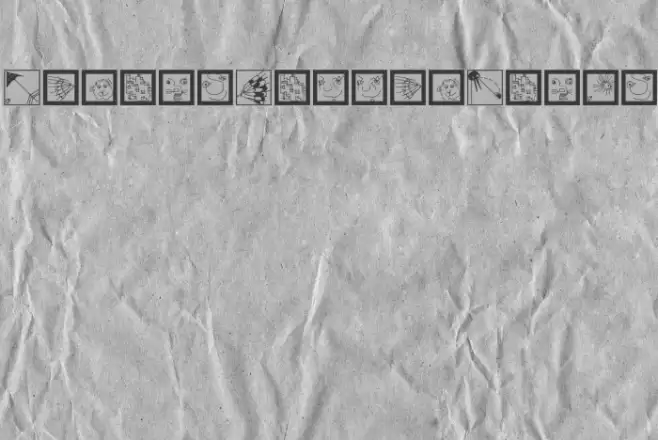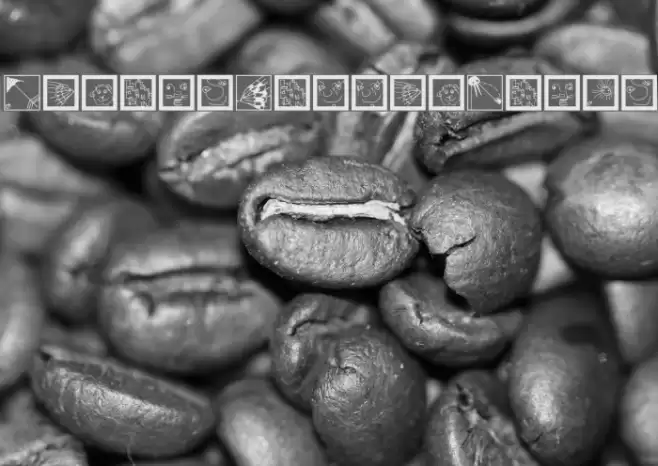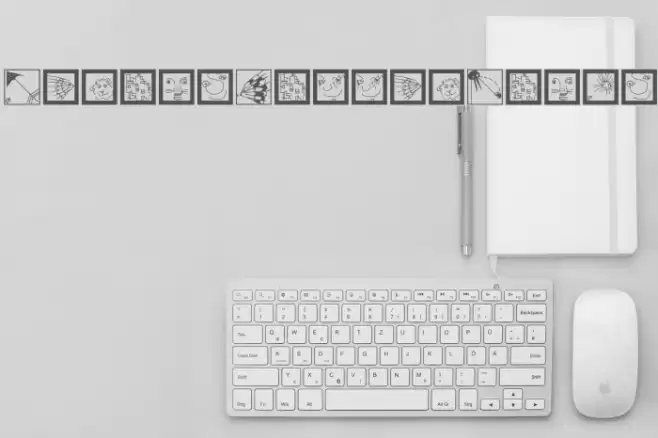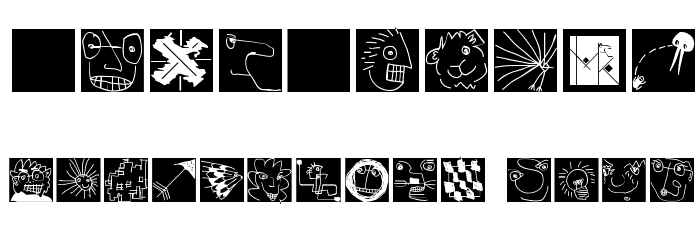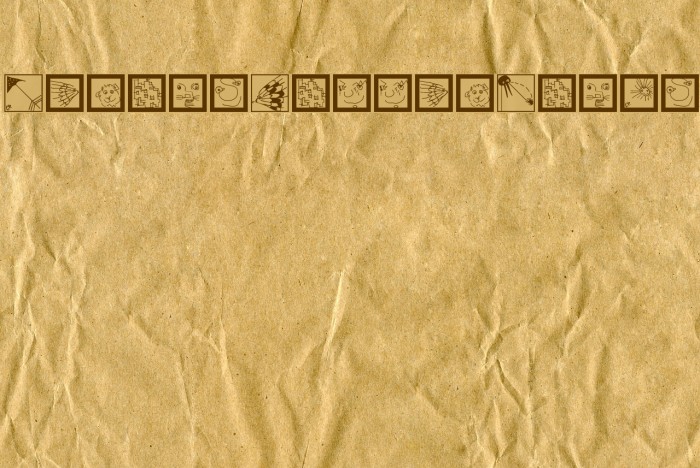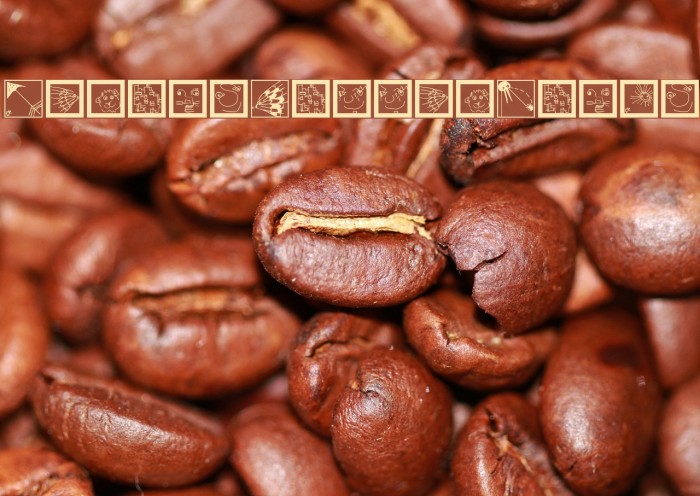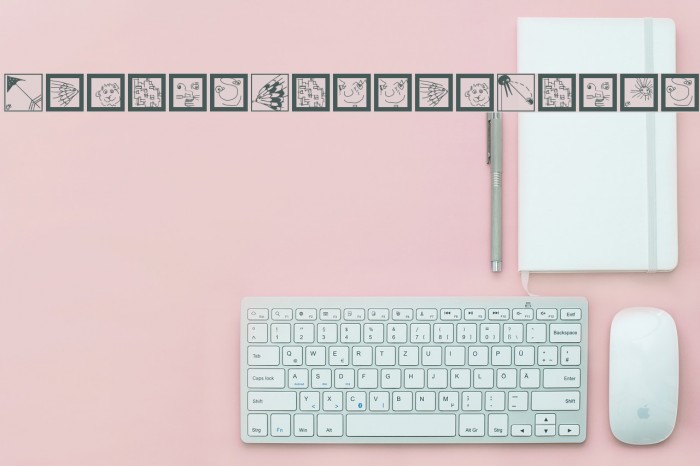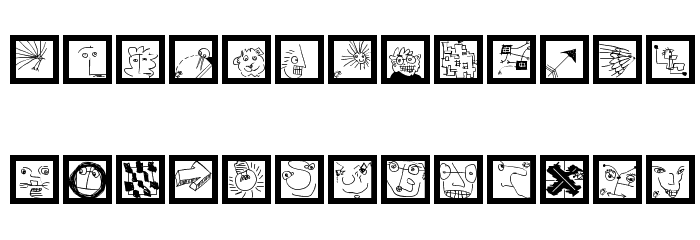
KleinsLittleDings Font
KleinsLittleDings Description
This is a decorative font composed of quirky, hand-drawn doodles and illustrations. Each character is a unique, playful sketch that includes abstract faces, geometric patterns, and whimsical designs. The style is reminiscent of a child's drawing, with a sense of spontaneity and creativity. The characters are enclosed in square frames, giving a consistent structure to the otherwise varied and imaginative illustrations. This font is ideal for projects that require a fun and artistic touch, adding a sense of humor and light-heartedness to any design.
A decorative font featuring playful, hand-drawn doodles and illustrations from Uncategorized fonts.
- Proposed Projects: Ideal for children's books, creative posters, greeting cards, and playful branding materials.
- Overall Style: Whimsical, Artistic
- Use Case: Logos, Posters, Creative Projects